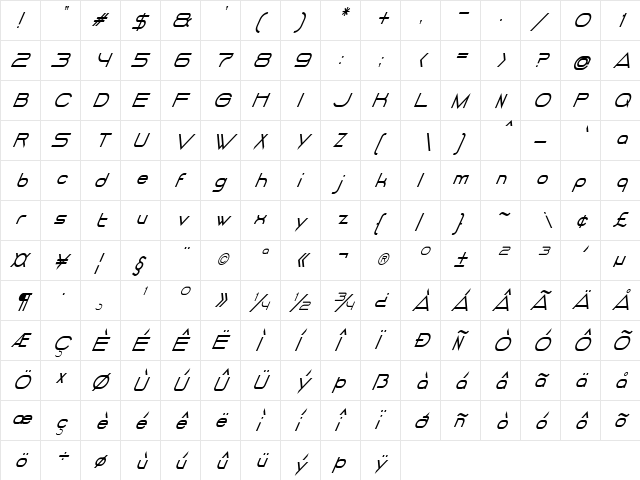
DANCING JUICE Italic
| Foundry | rimando nillo, jr. |
| Designer | dondon nillo |
Design Context for DANCING JUICE Typeface
DANCING JUICE is a composed and adaptable typeface that performs quietly and consistently across a wide range of design contexts. The dynamic lean of this cut emphasises speed and emphasis in any layout.
Pro Tip: Try DANCING JUICE for annotation and caption copy alongside an upright companion — the contrast in angle creates a dynamic but ordered typographic system.